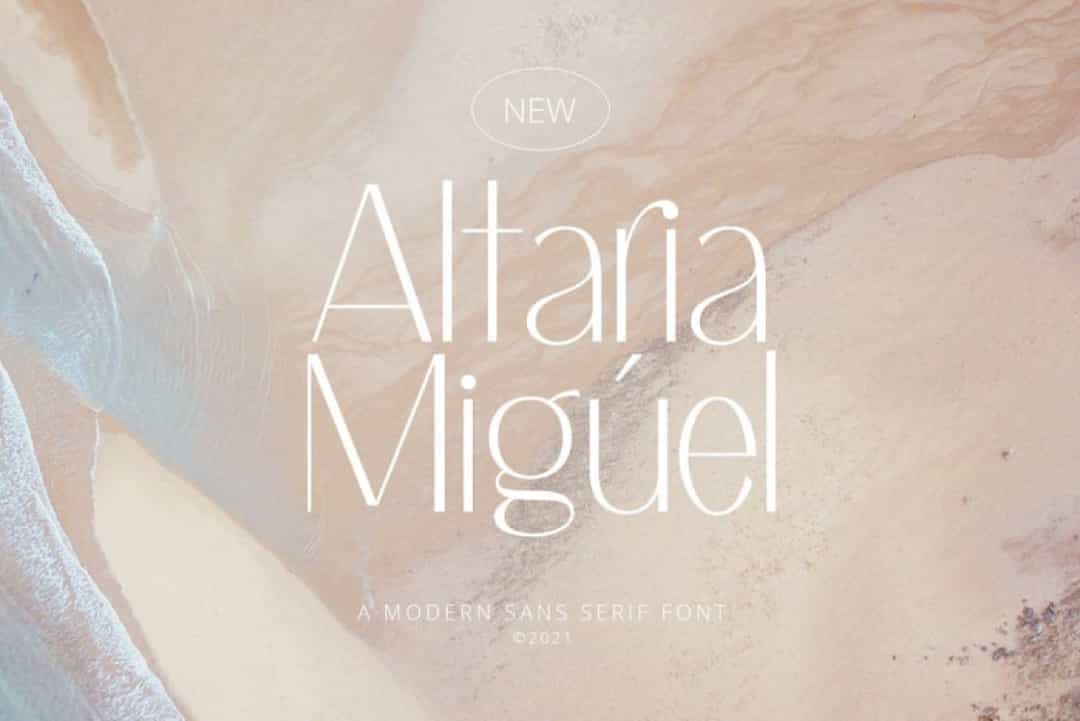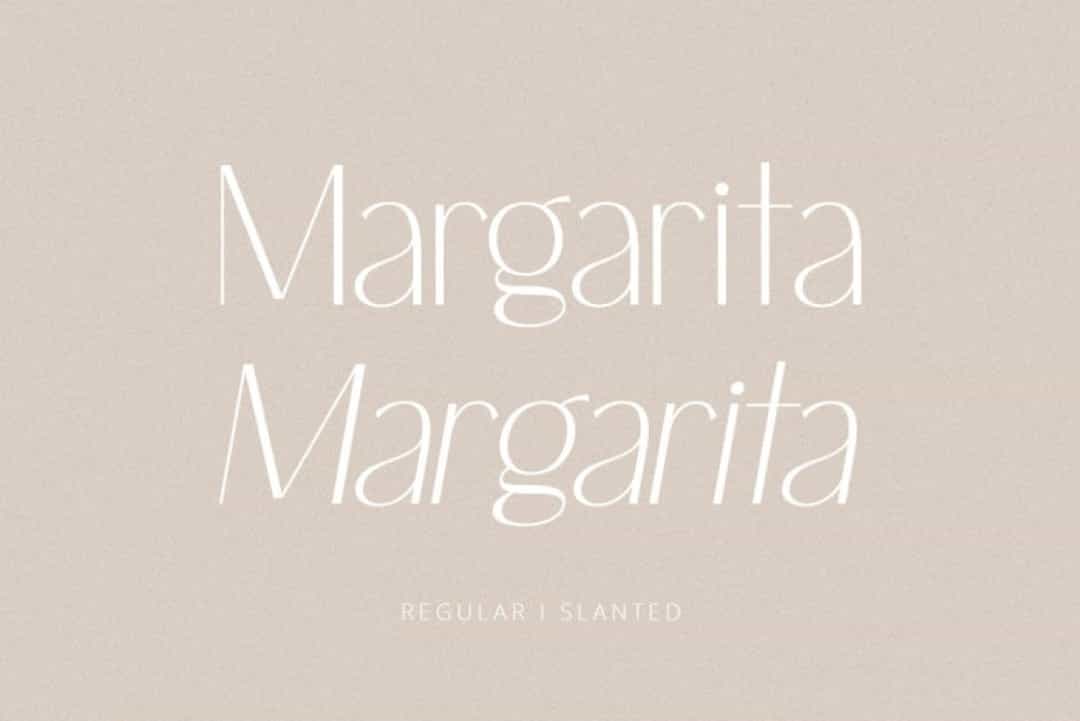
Altaria Miguel is an elegant and contemporary sans serif font with a thin modern style that can meet many design requirements, from headlines, branding and logos advertising or product design. Altaria Miguel was meticulously created with only one goal in mind – making the font multi-functional for diverse design tasks.